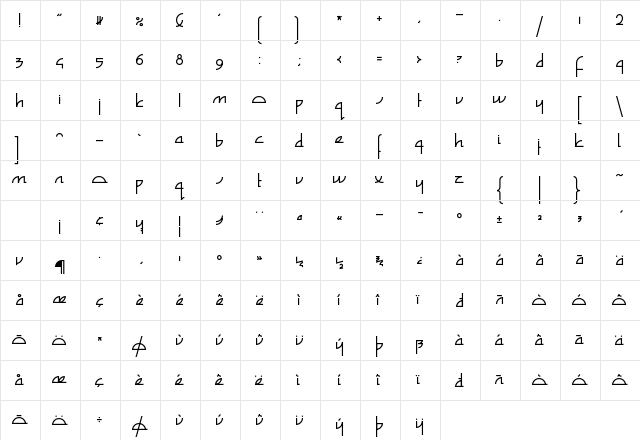
Zefir Normal
| Foundry | Adam Rucki |
| Designer | Adam Rucki |
Design Context for Zefir Typeface
Zefir takes a measured approach to typography — its balanced proportions and neutral character make it a reliable workhorse for both digital and print work.